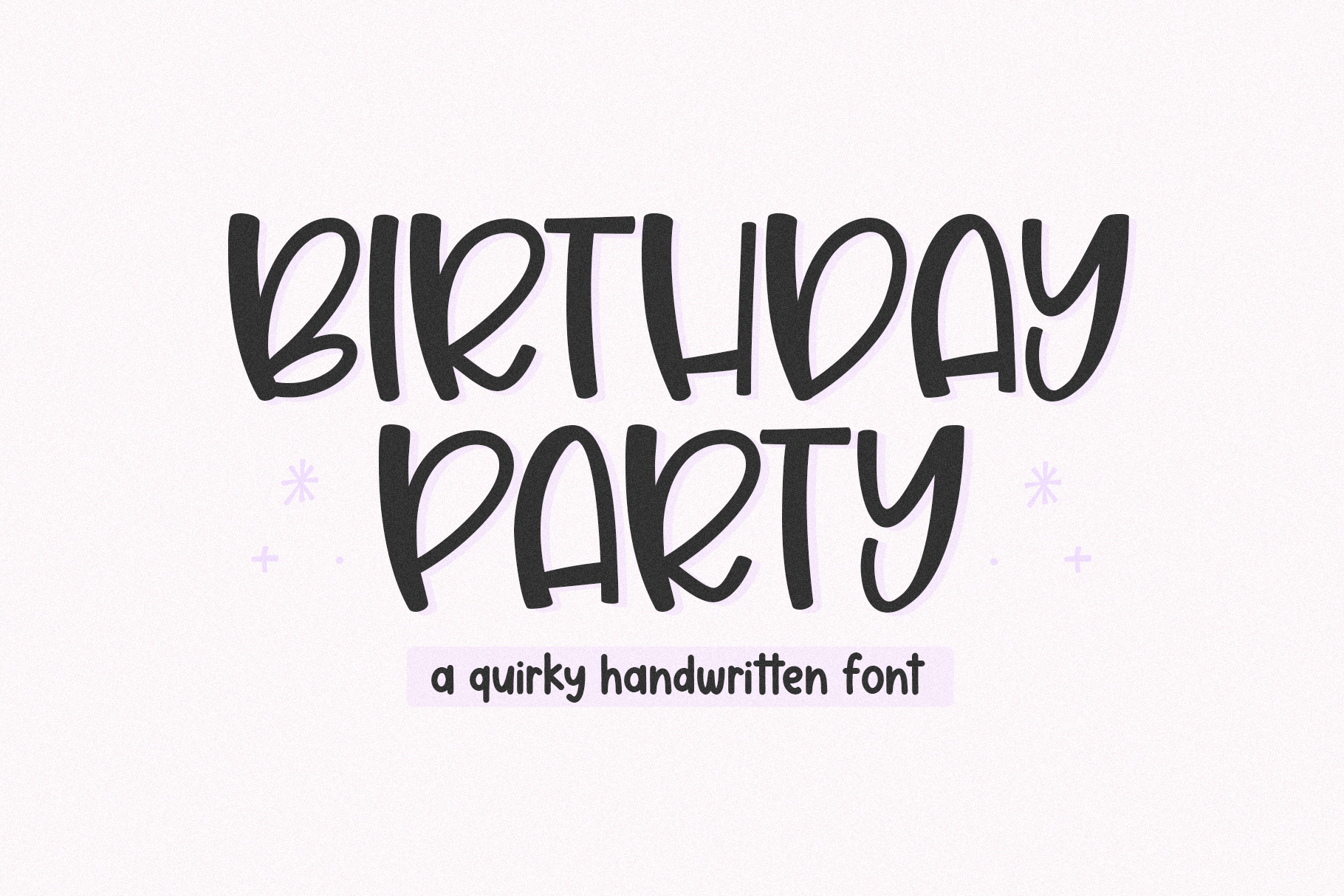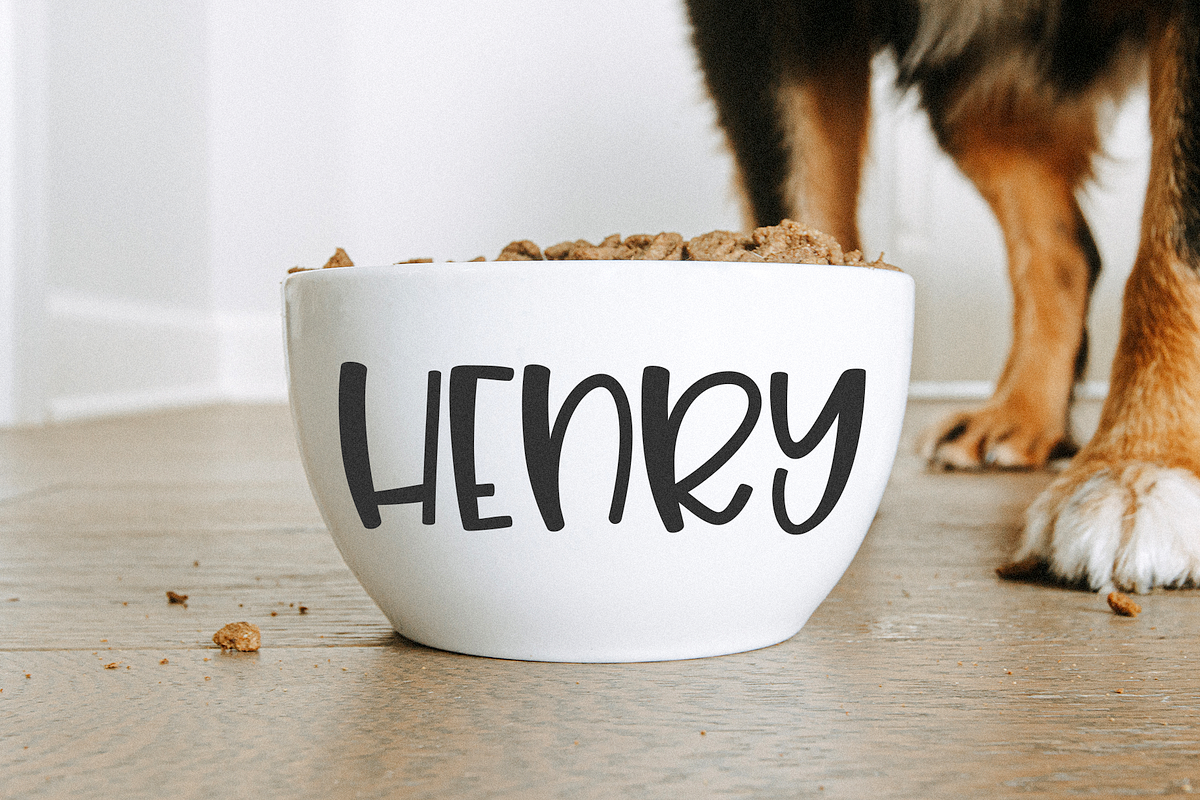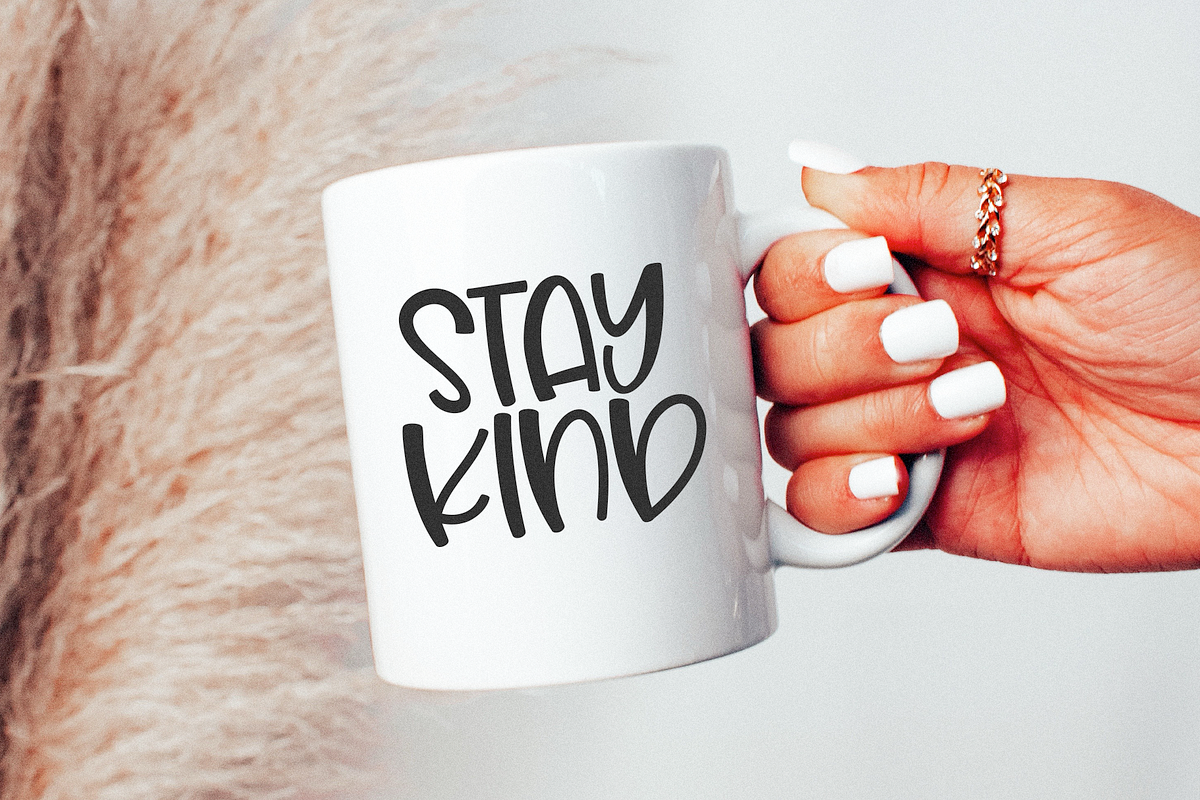
Birthday Party | Handwritten Font
Birthday Party is a cute & quirky handwritten font.
This font is perfect for cricut projects, svg files, shirts, stickers, teachers, quotes, logos, procreate and more!